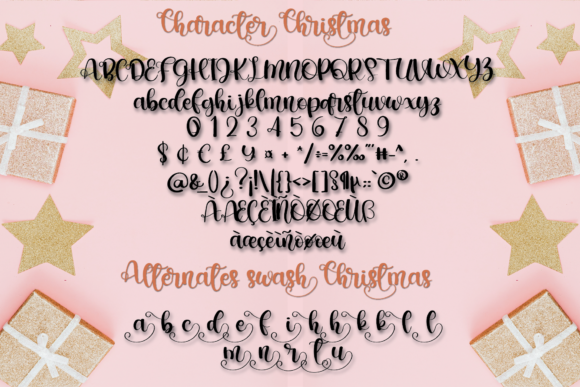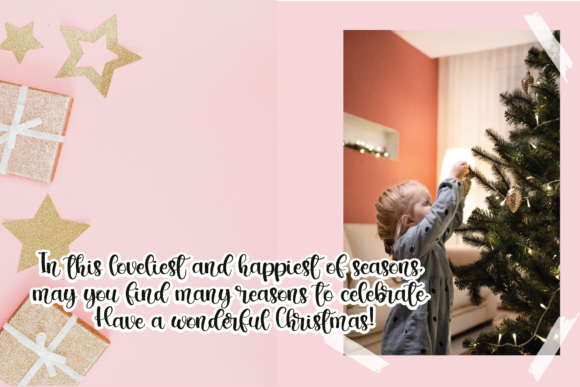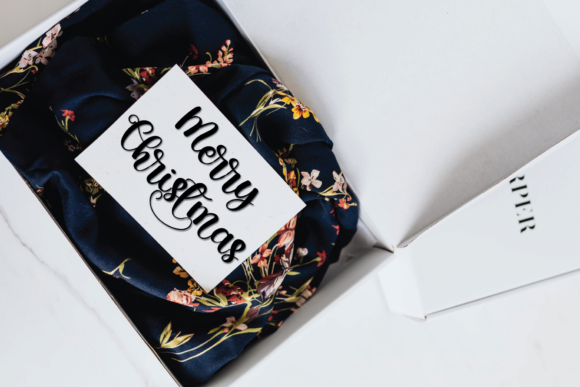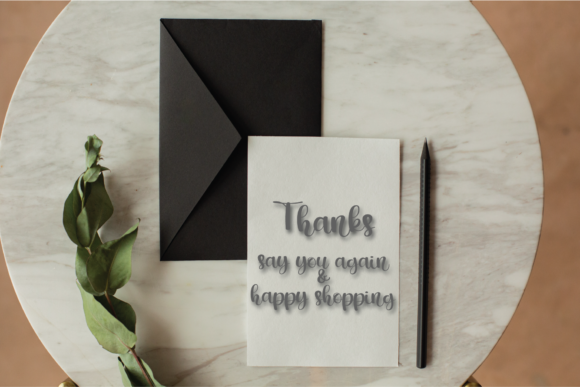
Deck the Halls with a Touch of Whimsy
As you sit amidst a sea of scribbled ideas, half-finished designs, and scraps of paper, a spark of creativity strikes. You envision a festive holiday campaign, a merry Christmas card, or a joyful new year’s invitation. The possibilities are endless, but one thing’s for certain – the right font can make all the difference.
Enter Christmas Font, a charming script font that adds a touch of magic to your most creative ideas. With its playful characters and carefree spirit, it’s the perfect companion for designers looking to spread holiday cheer. Whether you’re crafting a seasonal advertisement, designing a festive logo, or simply adding a dash of whimsy to your social media posts, Christmas Font is the perfect choice.
Christmas Font Key Features
- Unique Characteristics: Includes festive ornaments, snowflakes, and holly leaves that can be used as standalone graphics or combined with text
- Font Styles: Offers a range of font styles, including bold, italic, and bold-italic
Designer Review: Christmas Font
Overall, I think the Christmas Font has some great features that make it a solid choice for holiday projects ✨. Here are a few things that I appreciate about it:
- Unique and festive design that’s perfect for Christmas-themed projects
- Comes in a variety of font styles and weights, offering flexibility for different design needs
- Well-suited for digital use, including web design and social media graphics
However, there are a few limitations to consider ⚠️:
- Limited customization options, which may be a drawback for designers who like to get creative with their fonts
- Some characters may not display properly in certain contexts, which could lead to design issues
- Not suitable for print use, as the font may not translate well to physical materials
Overall, I think the Christmas Font is a good choice for designers who need a festive font for digital projects. While it has some limitations, its unique design and variety of styles make it a solid option for holiday-themed projects ✨.
Tips for Getting the Most Out of Christmas Font
Use Christmas Font to add a festive touch to your designs, such as in holiday cards, gift tags, and party invitations.
Experiment with different font sizes, colors, and styles to create a unique look.
Combine Christmas Font with other festive graphics, such as holly leaves and snowflakes, to create a cohesive design.
Christmas Font is perfect for:
Holiday cards and invitations
Gift tags and wrapping paper
Party decorations and signs
Alternatives to “Christmas Font” for Designers
Great Vibes is a beautiful, elegant script font that is perfect for creating a festive and luxurious atmosphere. It features flowing lines and a classic feel, making it ideal for wedding invitations, holiday cards, and other special occasion designs.
Compared to Christmas Font, Great Vibes is more refined and sophisticated. While Christmas Font is often associated with a more playful and kitschy vibe, Great Vibes exudes a sense of sophistication and elegance. Use Great Vibes when you want to add a touch of luxury to your holiday designs.
Carolyna Pro is a modern script font that is perfect for creating a bold and eye-catching holiday look. It features bold lines and a playful feel, making it ideal for advertising, packaging, and other high-impact designs.
Compared to Christmas Font, Carolyna Pro is more modern and edgy. While Christmas Font is often associated with a traditional and nostalgic vibe, Carolyna Pro is perfect for designers who want to add a touch of modernity to their holiday designs.
Alex Brush is a beautiful, elegant script font that is perfect for creating a warm and inviting atmosphere. It features flowing lines and a classic feel, making it ideal for holiday cards, gift tags, and other special occasion designs.